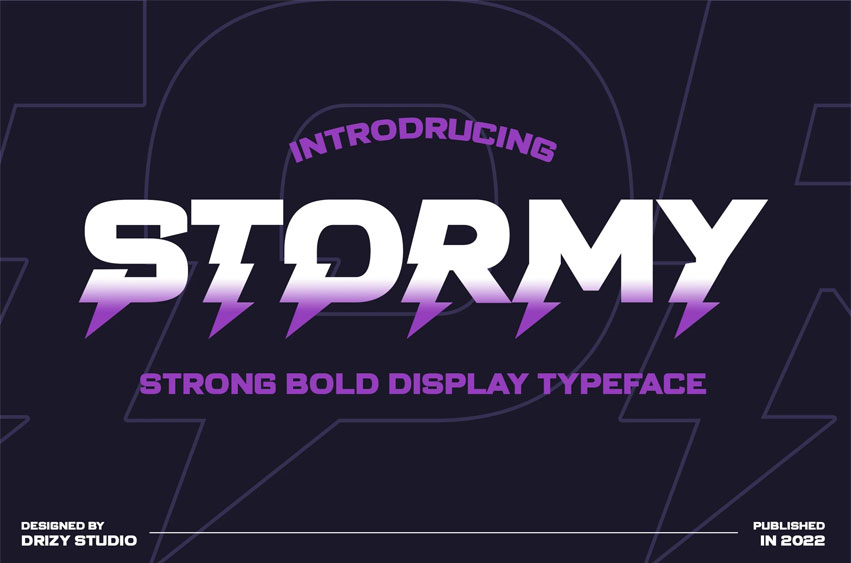
Stormy Font is a strong, bold typeface from Drizy Studio. Offering all the basic styles you will need for a strong and stormy project theme.
Stormy Features:
Uppercase & Lowercase Numeral & Punctuation Multilinguals & Ligatures